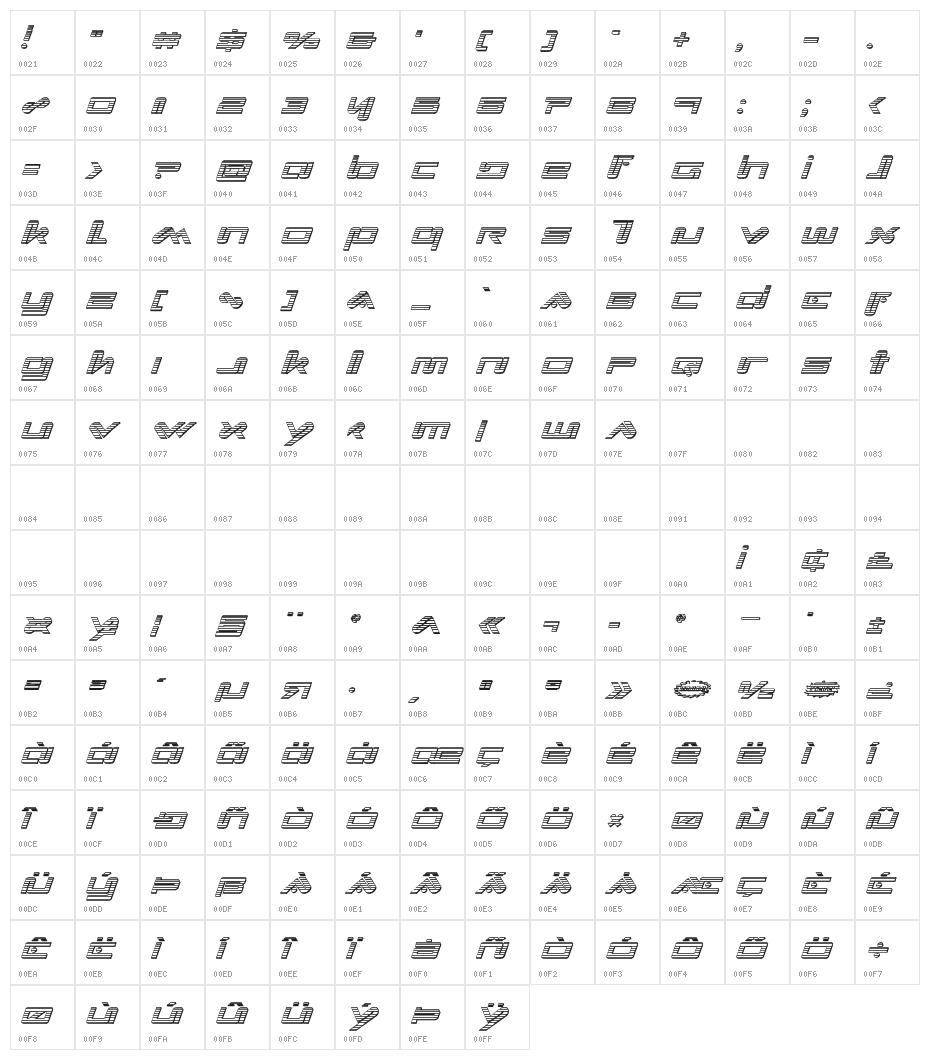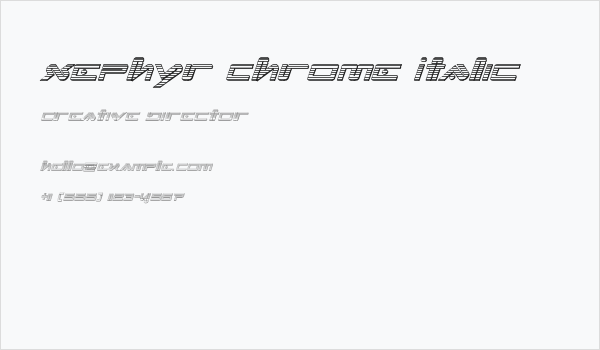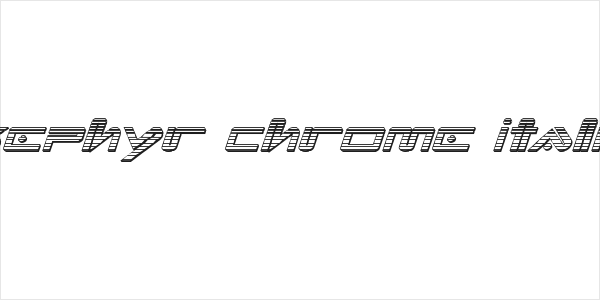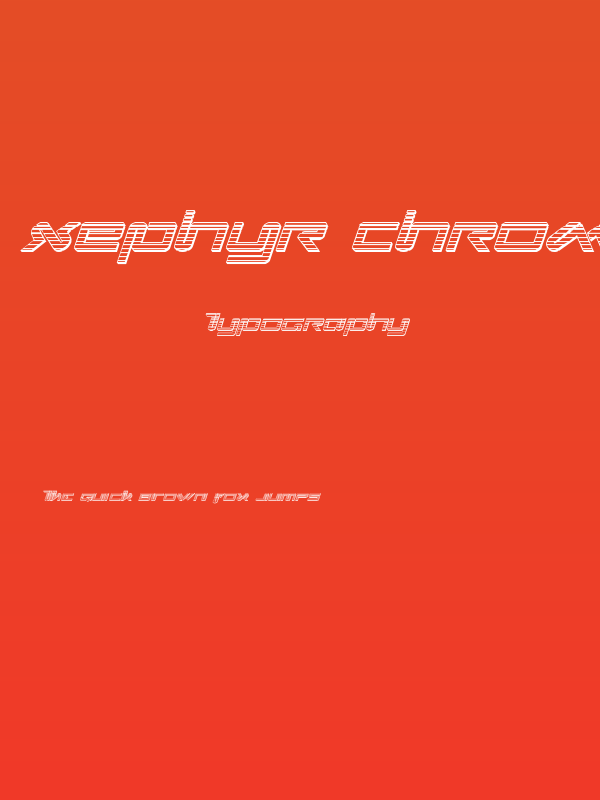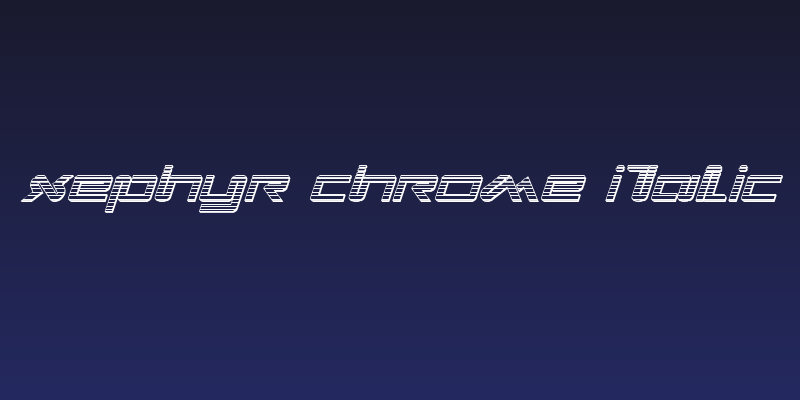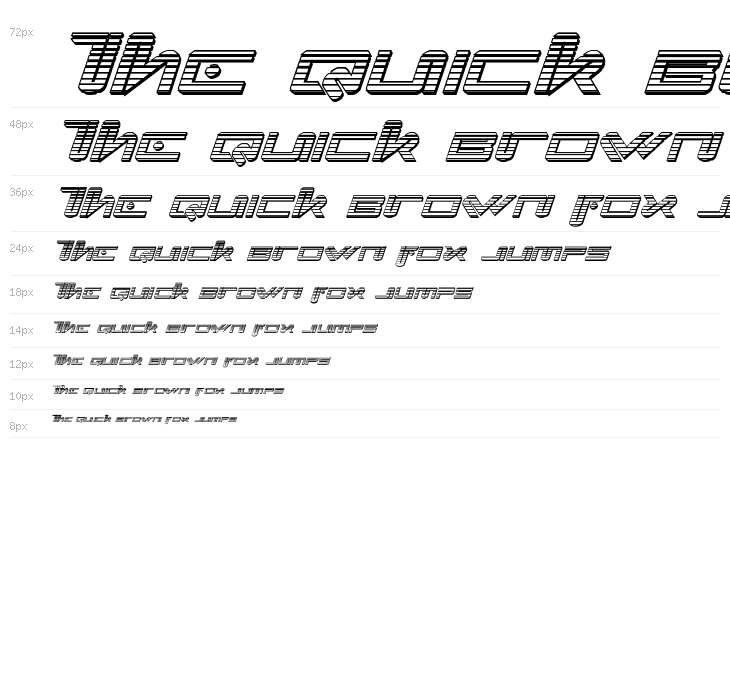
Xephyr Chrome Italic Font
Xephyr Chrome Italic Description
This font features a futuristic and dynamic design, characterized by its multi-line, striped pattern that gives each character a sense of depth and movement. The letters are italicized, adding a slanted, forward-leaning appearance that enhances its modern and energetic feel. The uppercase and lowercase letters maintain a consistent style, with sharp angles and geometric shapes that create a cohesive look. Numbers and special characters follow the same design principles, ensuring uniformity across all glyphs. The font's unique style makes it stand out, ideal for projects that require a bold and eye-catching typeface.
| Proposed Projects | Ideal for sci-fi themed designs, tech branding, video game titles, and modern posters. |